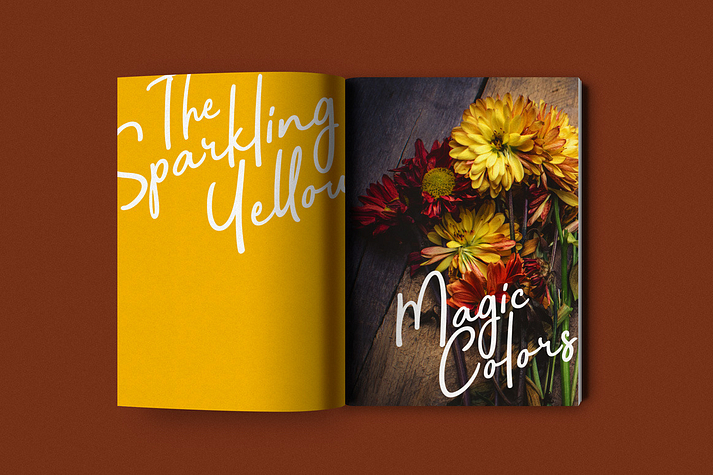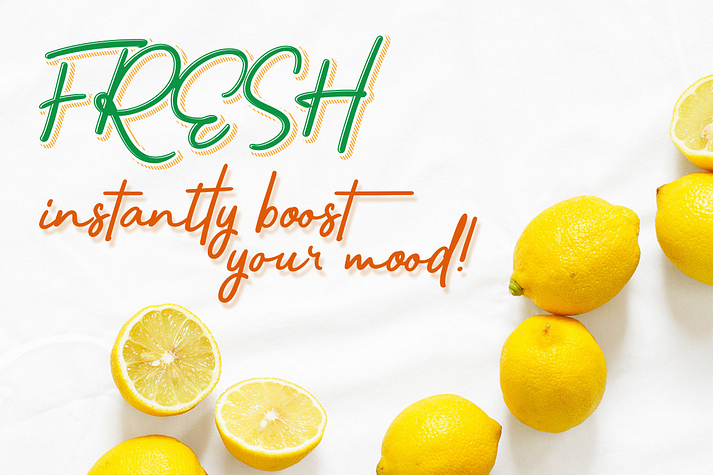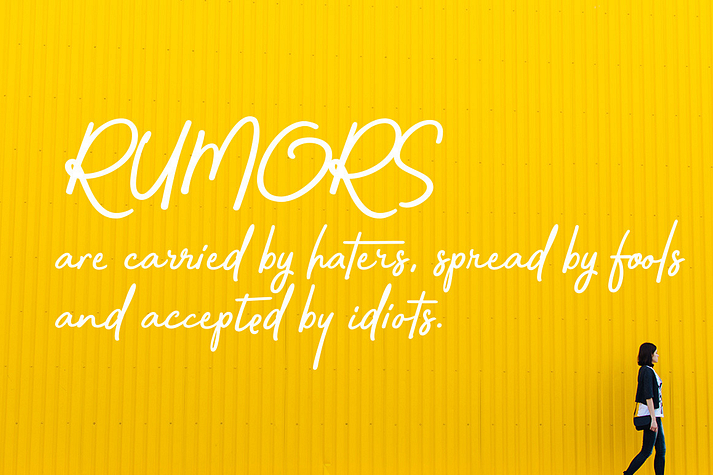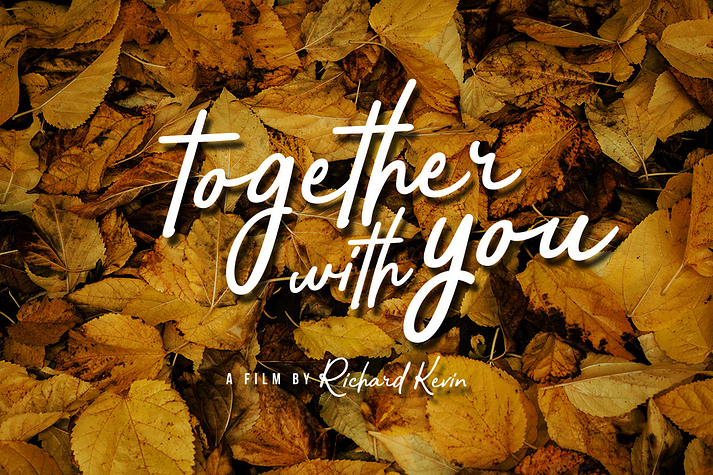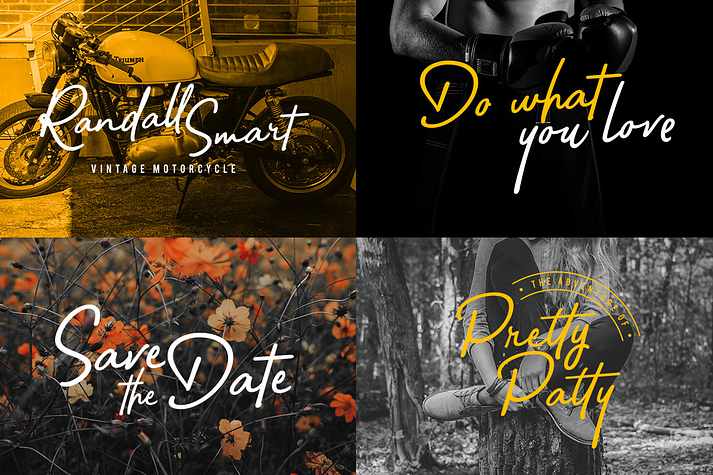
Bahagia
Bahagia is a font family published by Locomotype.
Bahagia is a font that displays the classic signature style. This is a special craft that will give you a natural and casual impression and of course feels more personalized.
In addition to supporting multiple languages, Bahagia also offers some opentype features like stylistic alternates, contextual alternates and ligatures.
Bahagia is suitable for making invitations, logos, quotes, posters etc.